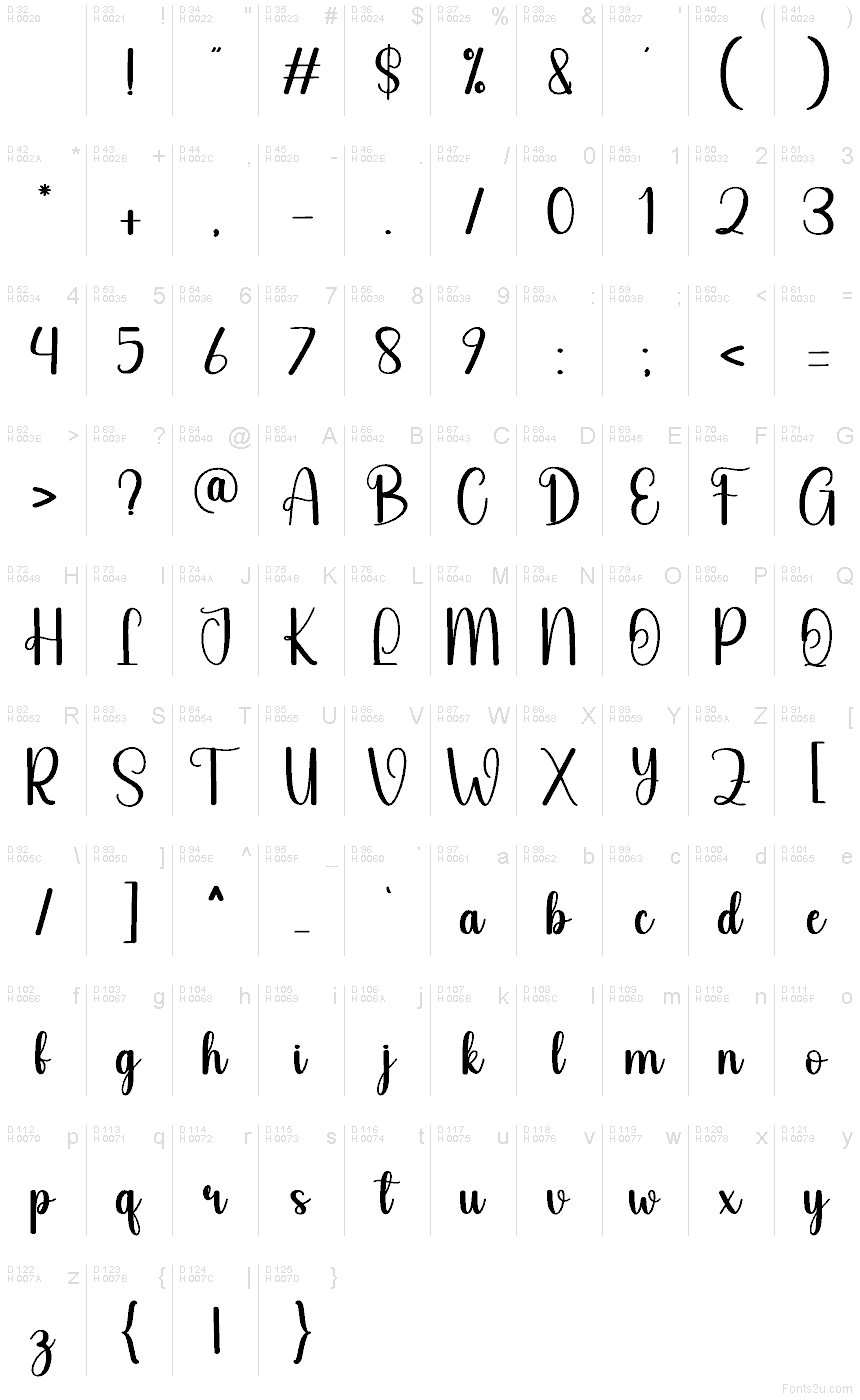
Blonde Barbie
Blonde Barbie font by Andi Moz is a free handwritten font with smooth curves and a modern appeal. This sophisticated typeface showcases fluid motion, adding an elegant and graceful aesthetic wherever it’s used. Its beauty lies in its simplicity which comes through perfectly in branding projects, fashion magazines, and similar stylish designs.
Blonde Barbie has many use case possibilities including business cards, posters, logo design, advertising materials, packaging design, greeting cards or invitations. The font can further also be part of T-shirt designs, illustrations for social media or websites, or even creative book covers.